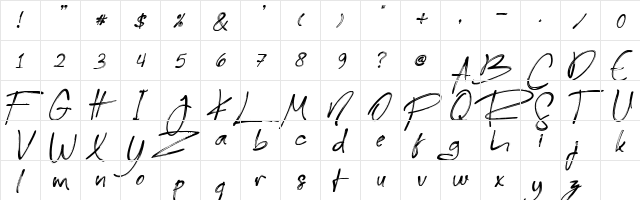
Reingttoon DEMO DEMO
| Foundry | Suandana Ipandemade |
| Designer | Suandana Ipandemade |
Design Context for Reingttoon DEMO Typeface
Reingttoon DEMO is a composed and adaptable typeface that performs quietly and consistently across a wide range of design contexts.